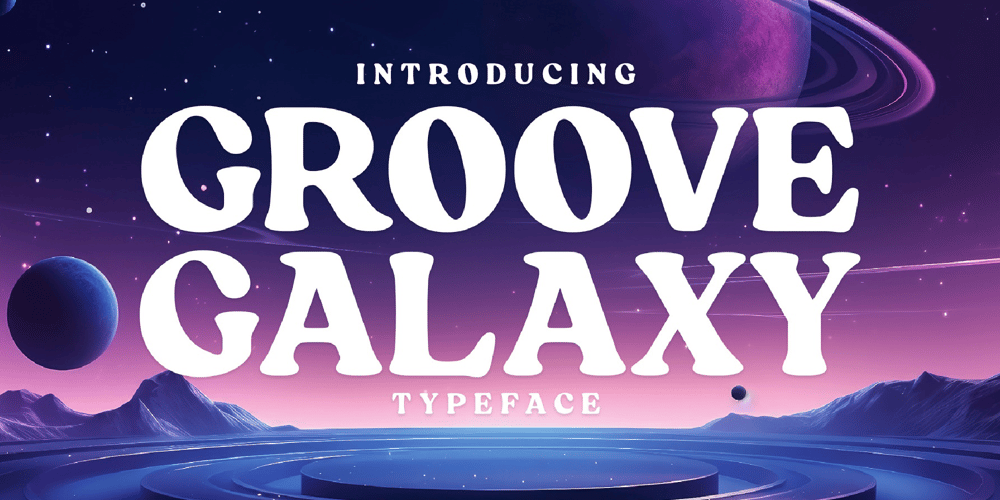
Farmhouse Haystack Font Family was designed by Igor Ovsyannykov and published by Hipfonts. Farmhouse Haystack contains 1 styles and family package options. Welcome to the cosmic dance of typography with Groove Galaxy, a captivating and thrilling rounded vintage typeface that swirls you into a time warp of retro charm reminiscent of the beloved 1970s.Just like stars twinkling in the night sky, each letter of Groove Galaxy emanates a mesmerizing aura, pulling you into a captivating journey through the groovy days of the past.